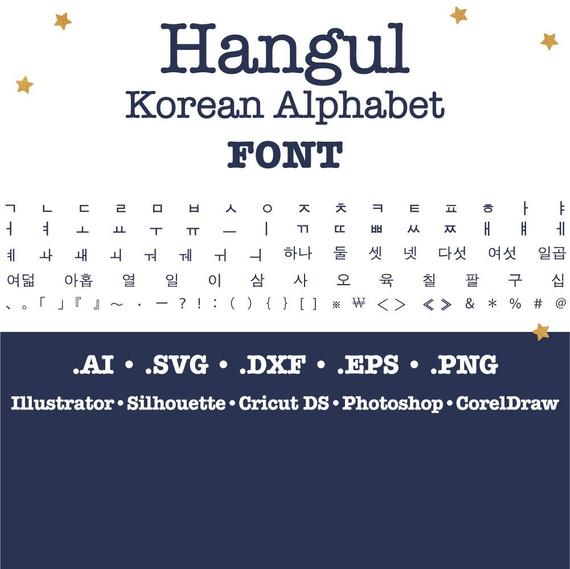
Hangul Font
It has grown to be as rapid as created for the number one time in 1953 via the writer in fleming. And this quantity has prolonged every day with the present day-day-day age.
The number one is a font that is created by the use of primetime font. He took the concept from the beginning. This font is used for t-blouse printing and brand designing functions.
Style Of Hangul Font Free